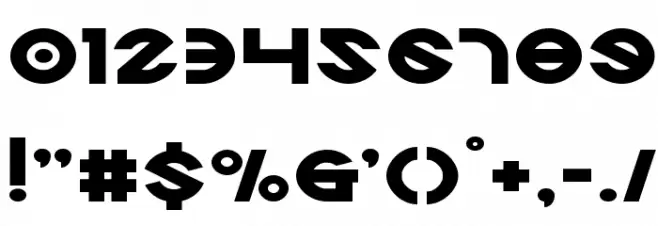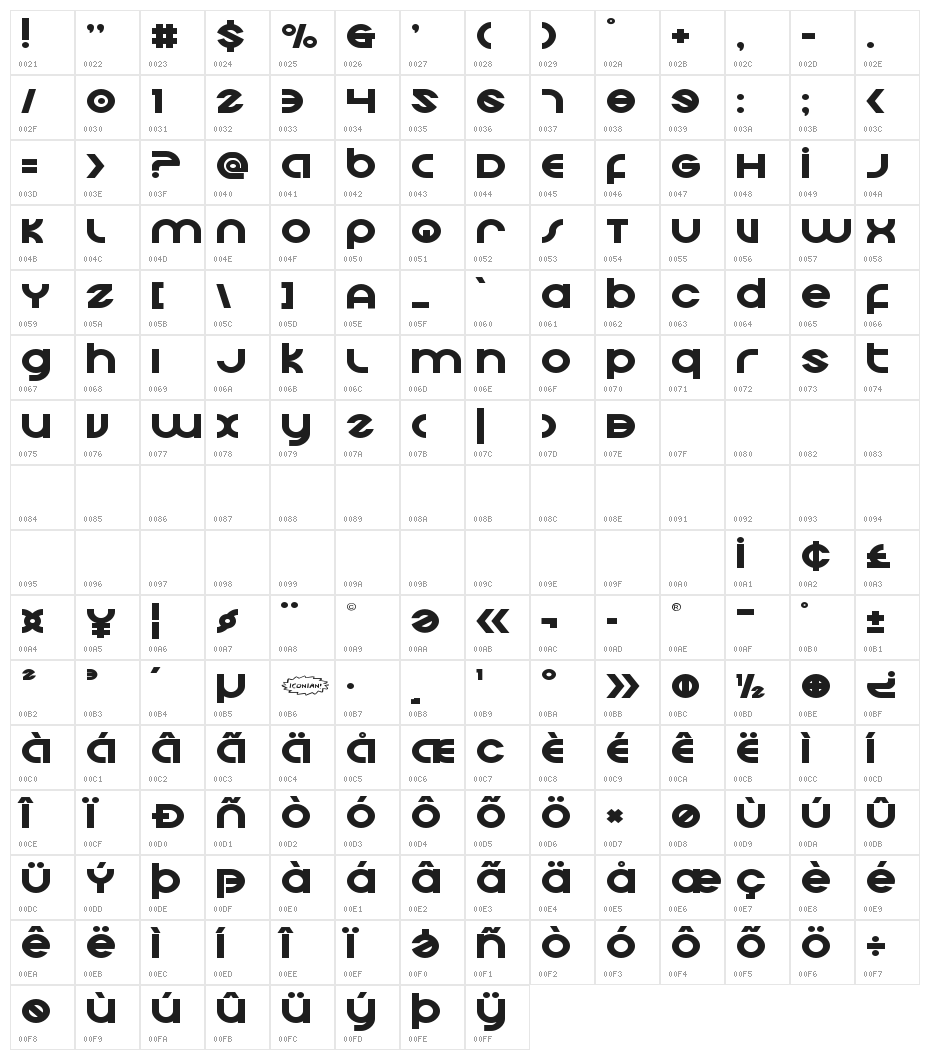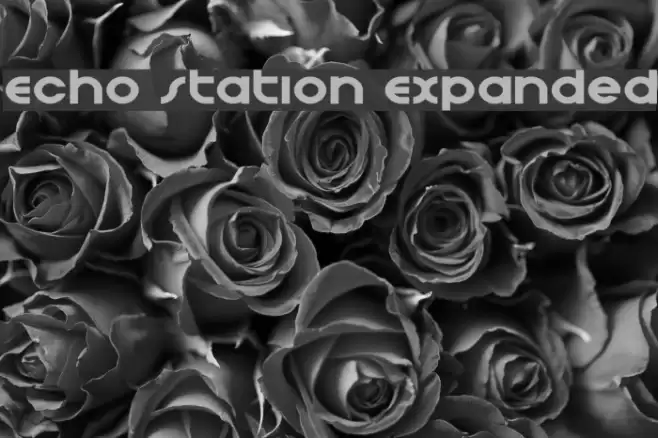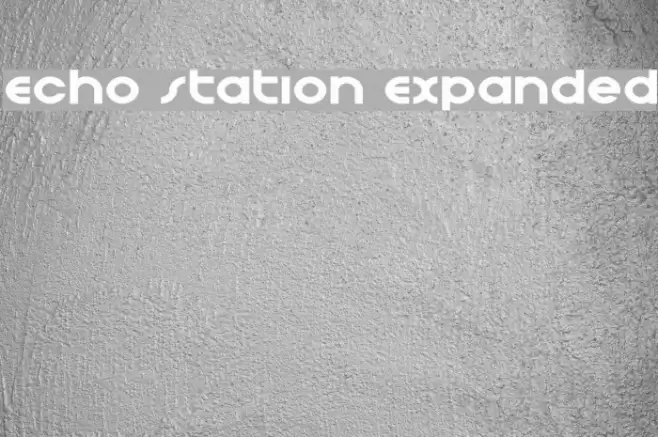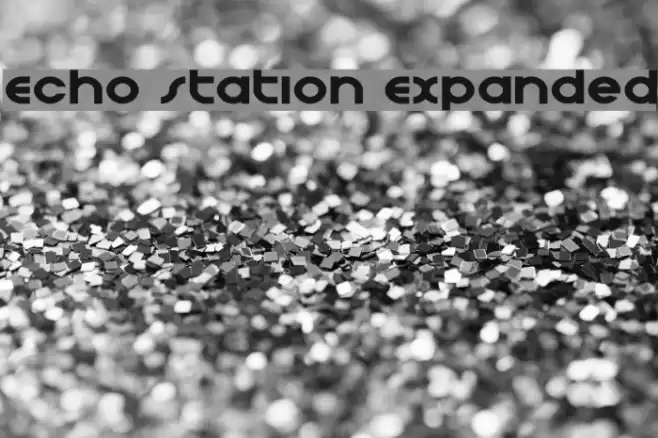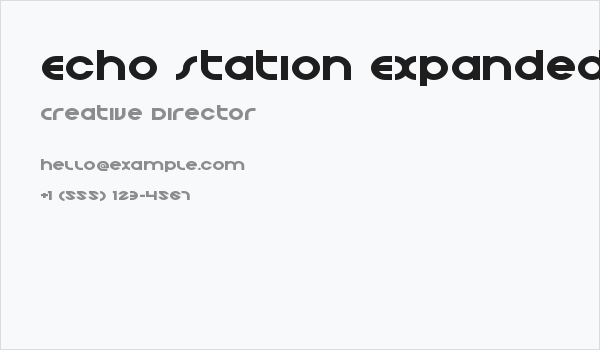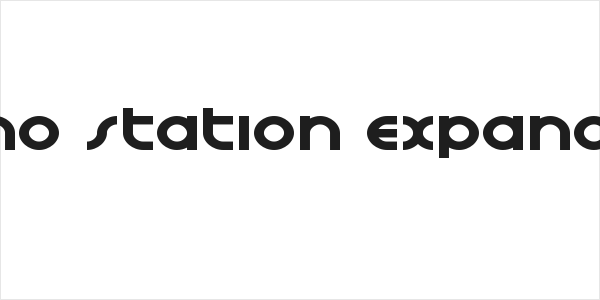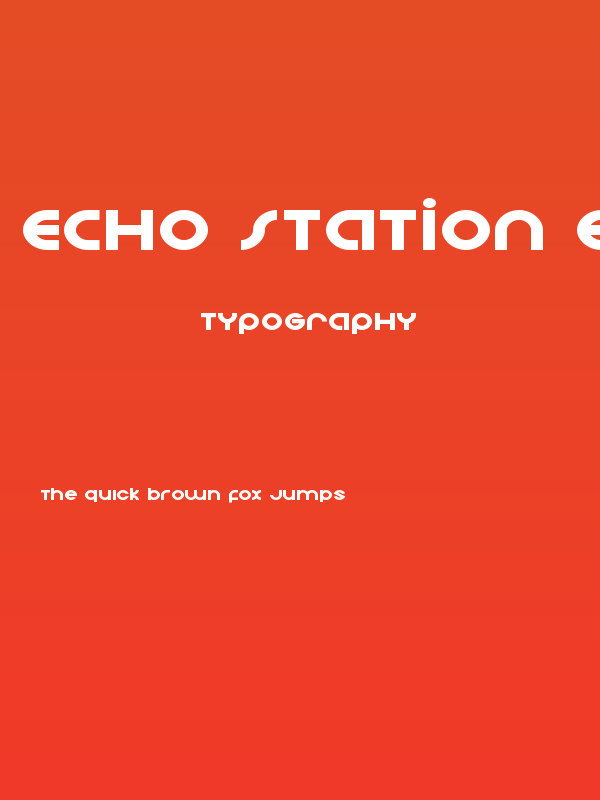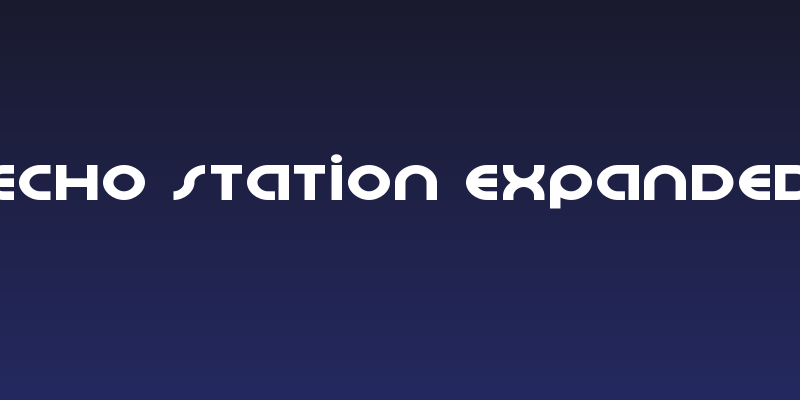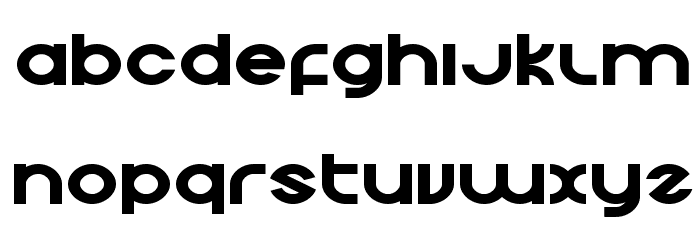
Echo Station Expanded Font
Echo Station Expanded Description
This font features a bold and futuristic design with geometric shapes and clean lines. The characters are constructed with a consistent thickness, creating a uniform and cohesive appearance. The rounded edges and symmetrical forms give it a modern and sleek look, making it ideal for contemporary design projects. The font maintains a balanced and structured layout, with each letter and number exhibiting a unique yet harmonious style. The special characters are designed to complement the overall aesthetic, ensuring versatility in various applications.
| Proposed Projects | Ideal for technology branding, sci-fi themed projects, modern advertising, and digital interfaces. |